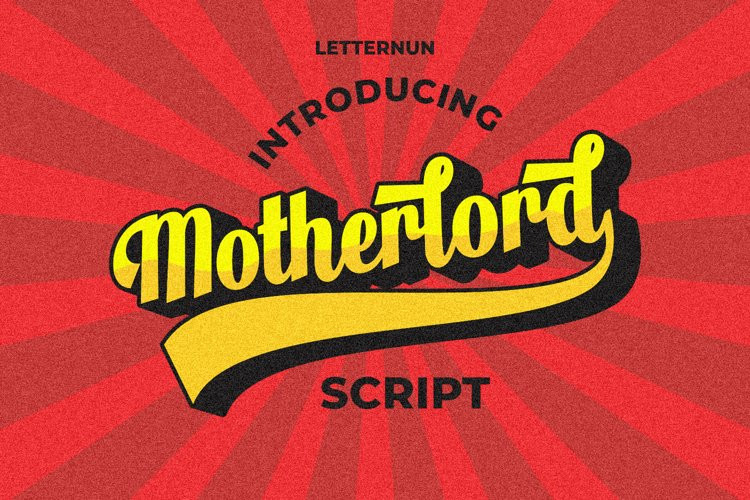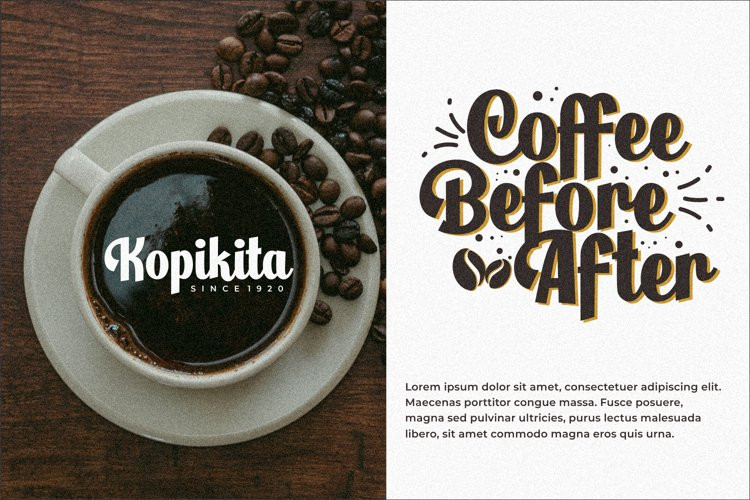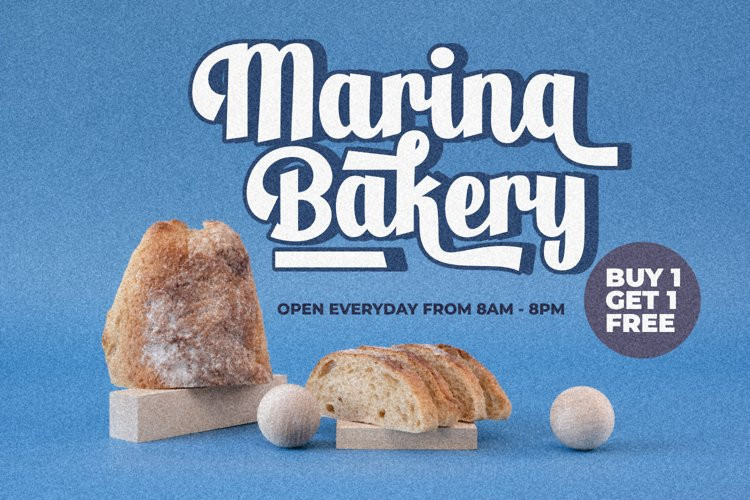
Motherlord Font
Motherlord is bold, elegant & fun vintage script font. Can be used for various purposes such as logos, wedding invitation, t-shirt, letterhead, Coverbook, short quotes, posters, badges etc.
Motherlord features alternate characters, ligatures, swash and multiple language support.